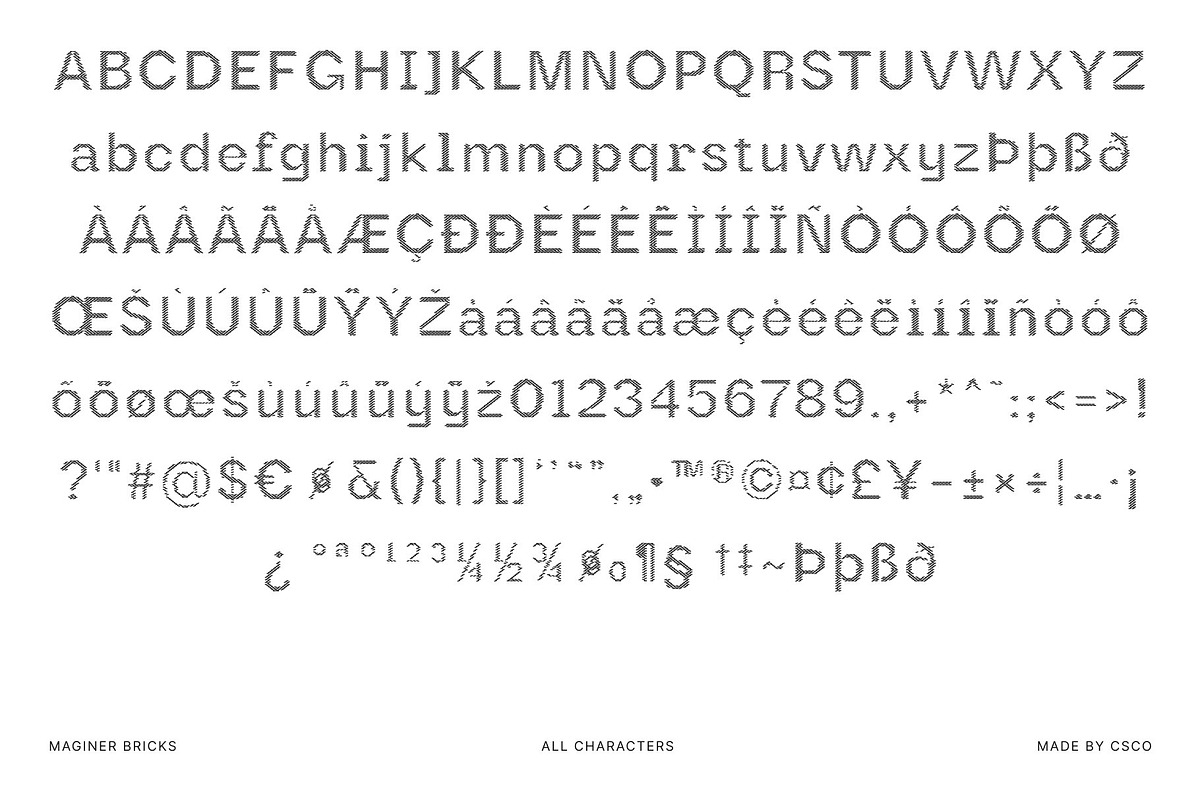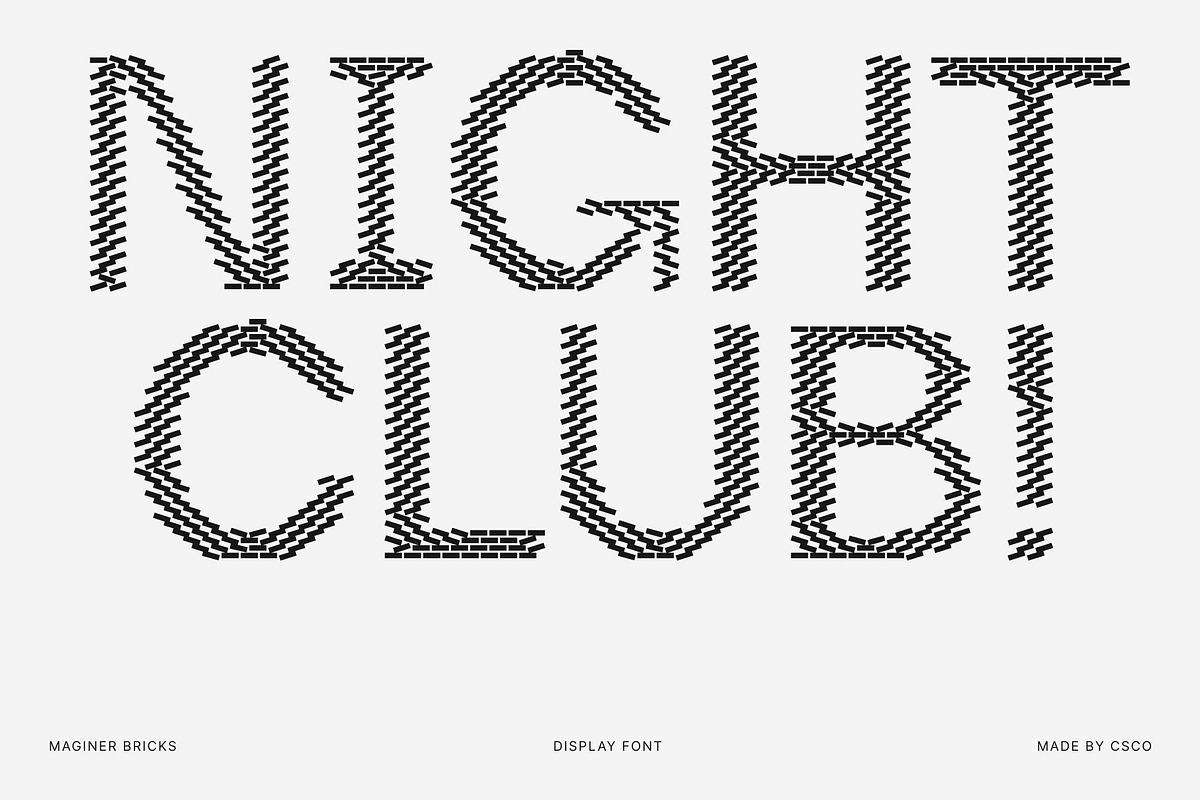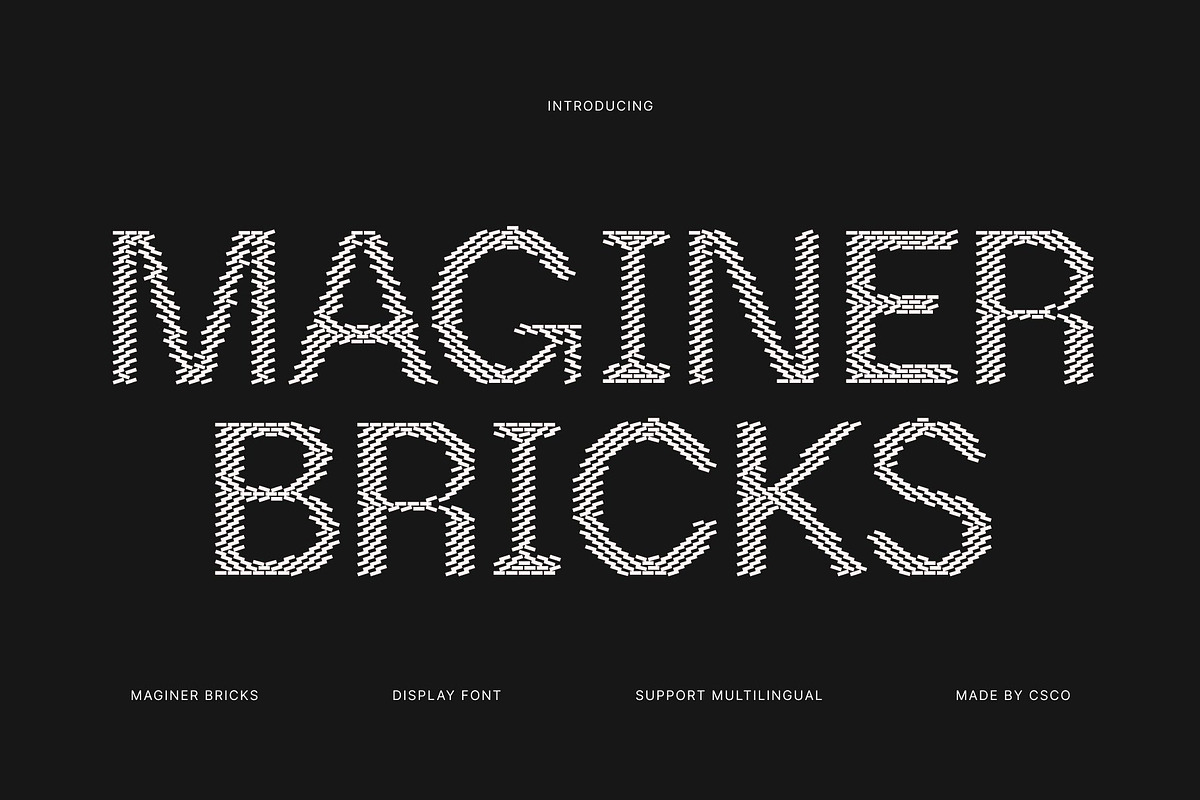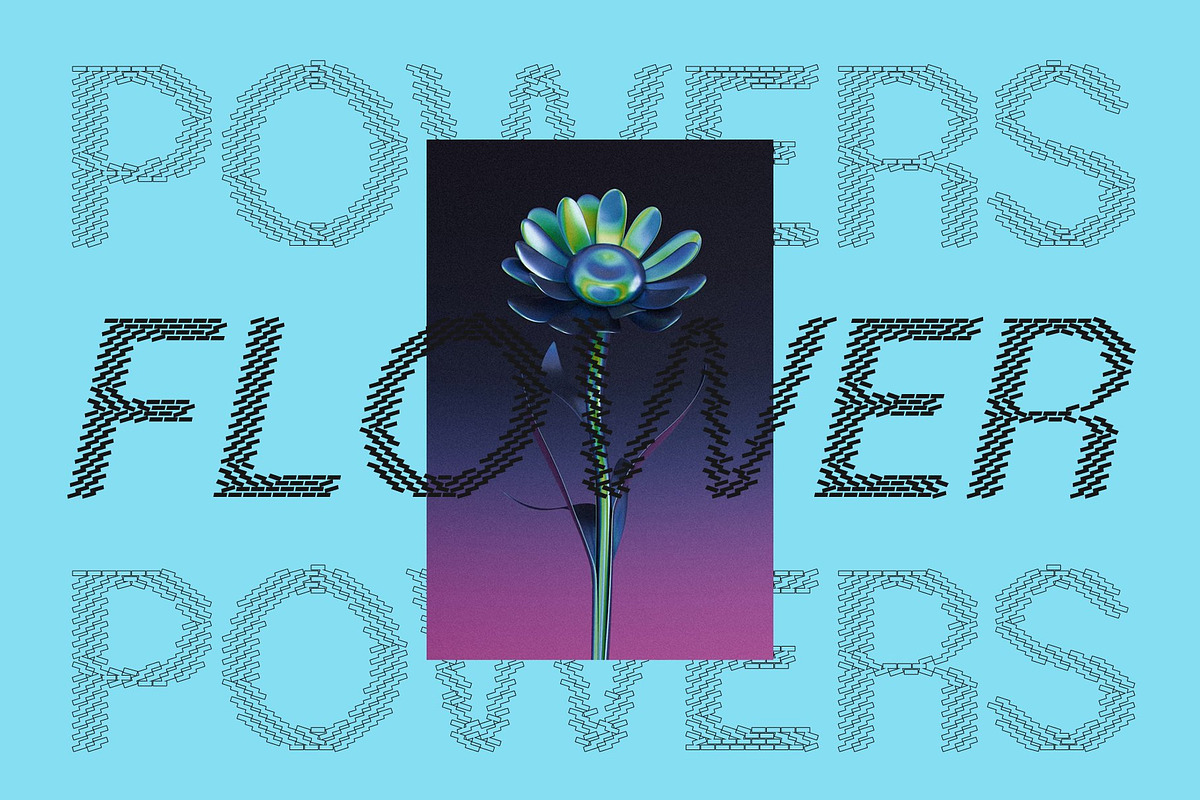
Maginer Bricks
Maginer Bricks – Quirky Sans Serif Font: Where Playful Creativity Meets Urban Structure
Expressive Contemporary Forms with Bold Personality This is a quirky sans serif display font designed with playful contemporary shapes and a distinctive brick-inspired decorative texture. Its unconventional forms create a lively and expressive visual personality, while the structured brick detailing adds a rugged urban character that feels bold, creative, and highly memorable.
Brick-Inspired Texture with Architectural Energy This font creates the impression that each letter is constructed from decorative stacked bricks. This textured detailing introduces depth, structure, and tactile charm while preserving the clean readability of the sans serif foundation. The result is a unique typographic style filled with architectural personality and street-inspired energy.
Modern Quirkiness with Urban Appeal This font offers a typographic identity that feels modern, experimental, and visually dynamic. Its quirky forms and decorative detailing create a playful atmosphere ideal for creative projects that seek originality and strong visual impact.
Perfect for Branding, Games, Streetwear, and Album Art This font ideal for branding, UI design, promotional materials for games, urban apparel, streetwear graphics, album art, posters, merchandise, and creative campaigns. Its expressive forms and brick-inspired texture make it perfect for logos, packaging, signage, and bold visual identities that aim to stand out with energetic urban style.
Maginer Bricks Regular
Maginer Bricks Italic